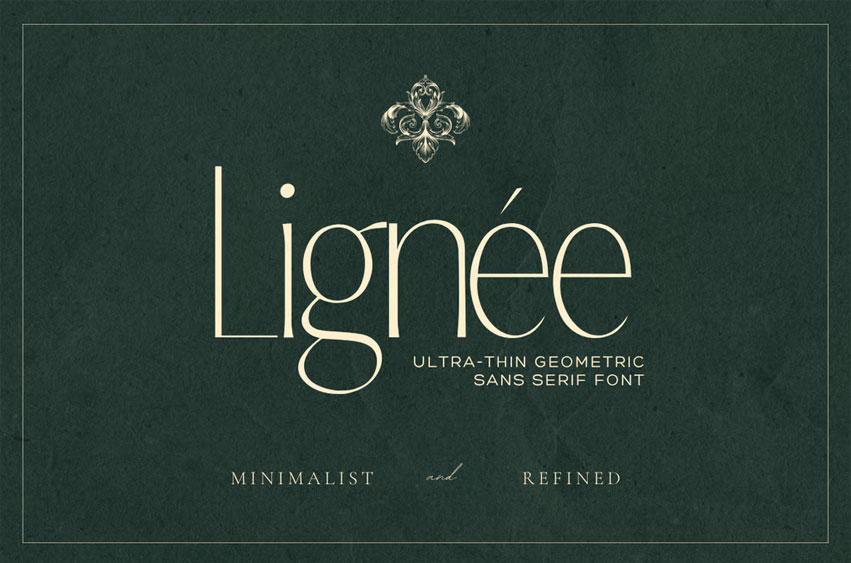
Lignée Font Step into a world of refined typography with Lignée, a high-fashion sans serif typeface crafted for those who design with intention and elegance. Inspired by editorial layouts, luxury branding, and architectural precision, Lignée balances geometric clarity with an organic, hand-drawn soul.
With ultra-thin strokes, elongated vertical stems, and soft-cornered geometry, every character in Lignée speaks the language of minimal sophistication. Alternates like the stitched-thread crossbar on H and E, the upward-curved A, and the subtly incomplete O offer a signature look that elevates visual identity into quiet artistry.
Perfectly suited for:
• Luxury fashion branding
• Editorial magazine layouts
• High-end packaging
• Art direction & lookbooks
• Designer portfolios and visual identities
• Alternates & ligatures (A, ST, TH, OO, H, E)
Let your brand breathe elegance with Lignée — where simplicity becomes iconic.